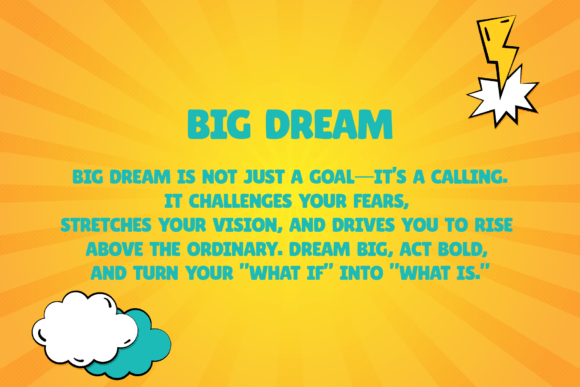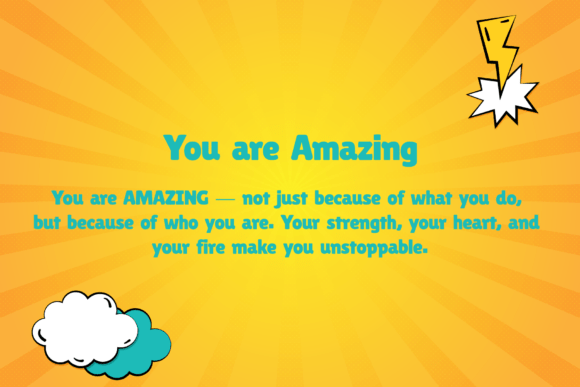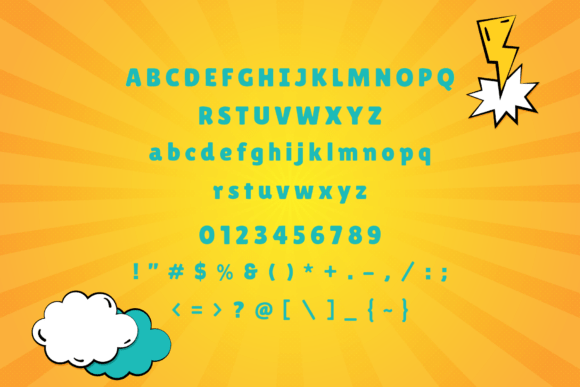
Introducing Byungah Comic Display Font: The Perfect Addition to Your Typography Collection
Are you a designer, crafty enthusiast, or simply someone who appreciates the art of typography? Look no further! Byungah Comic Display Font is a new and exciting addition to the world of typography that is sure to capture your attention. This font is casual, friendly, and perfect for any kind of creative endeavor you may be working on.
What Makes Byungah Stand Out?
Byungah is a unique and refreshing font that brings a touch of playfulness and whimsy to any project. Its casual and friendly demeanor makes it perfect for a wide range of applications, from digital designs to print materials. Whether you’re creating a logo, brochure, or social media graphic, Byungah is sure to add a dash of personality and flair.
One of the standout features of Byungah is its character set. This font contains all capital letters, numbers, and basic punctuation, making it a versatile and practical choice for any project. The font is also designed to be highly legible, ensuring that your message is conveyed clearly and effectively.
Byungah is a dream come true for designers and crafters who are looking for a font that is both creative and functional. The font’s casual and friendly vibe makes it perfect for a wide range of projects, from handmade crafts to digital designs. Whether you’re creating a custom sign, card, or gift tag, Byungah is sure to add a touch of personality and whimsy.
For designers, Byungah offers a fresh and exciting alternative to more traditional fonts. Its unique character set and playful demeanor make it perfect for projects that require a bit of creativity and flair. Whether you’re working on a branding project, website design, or social media graphics, Byungah is sure to help you stand out from the crowd.
Key Features of Byungah Comic Display Font
- Contains all capital letters, numbers, and basic punctuation
- Casual and friendly demeanor
- Highly legible
- Perfect for a wide range of creative projects
- Unique and refreshing design
Tips for Using Byungah in Your Designs
Here are a few tips for using Byungah in your designs:
- Use Byungah as a display font to add emphasis and personality to your design
- Pair Byungah with other fonts to create a unique and interesting contrast
- Use Byungah to add a touch of whimsy and playfulness to your design
Byungah Comic Display Font is a fresh and exciting addition to the world of typography. Its casual and friendly demeanor makes it perfect for a wide range of creative projects, from digital designs to print materials. With its unique character set and highly legible design, Byungah is sure to be a valuable addition to any designer’s or crafter’s toolkit.
So why not give Byungah a try? Whether you’re a seasoned designer or a crafty enthusiast, this font is sure to inspire and delight. With its playful and whimsical vibe, Byungah is the perfect choice for anyone looking to add a touch of personality and flair to their designs.